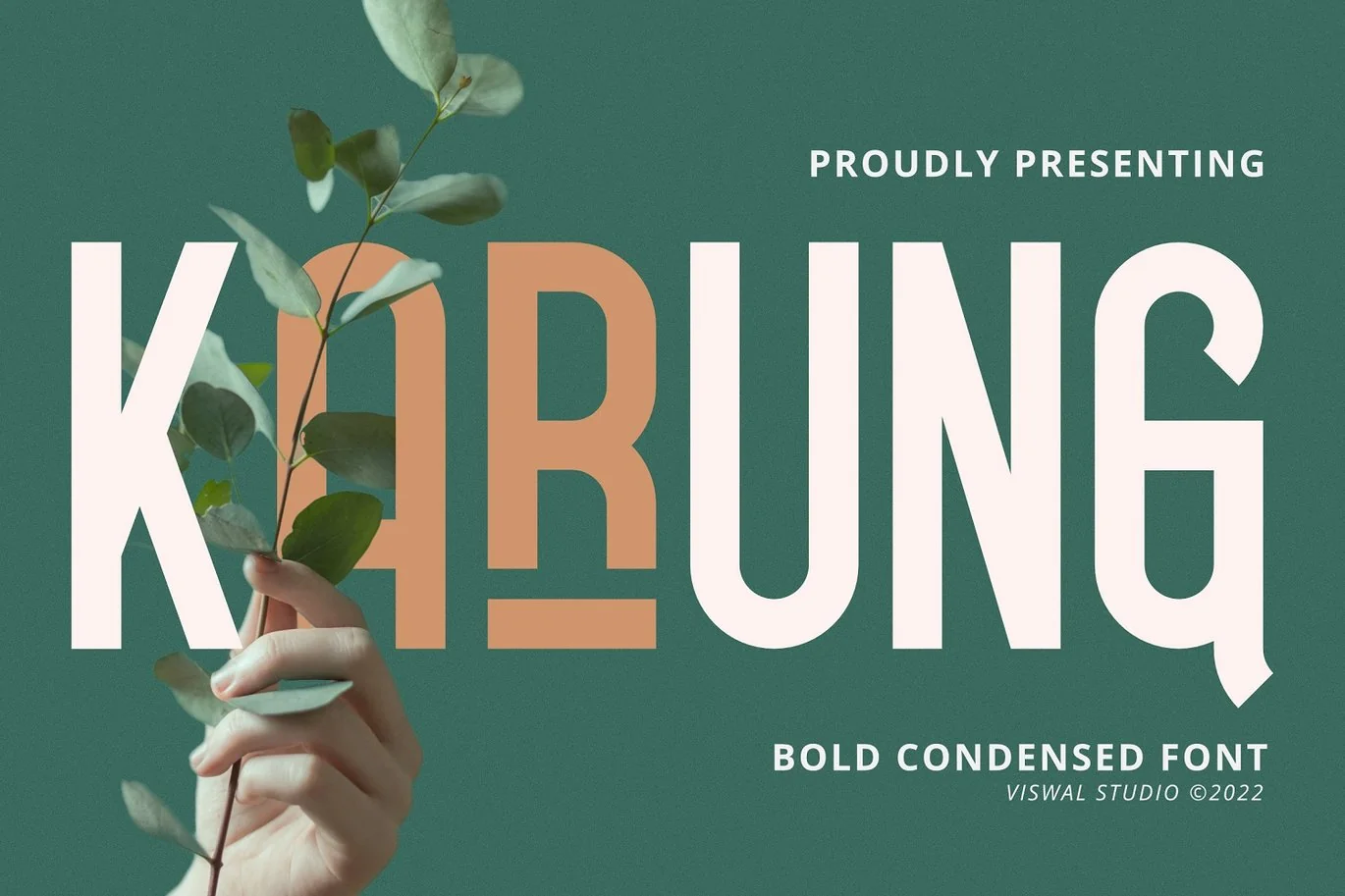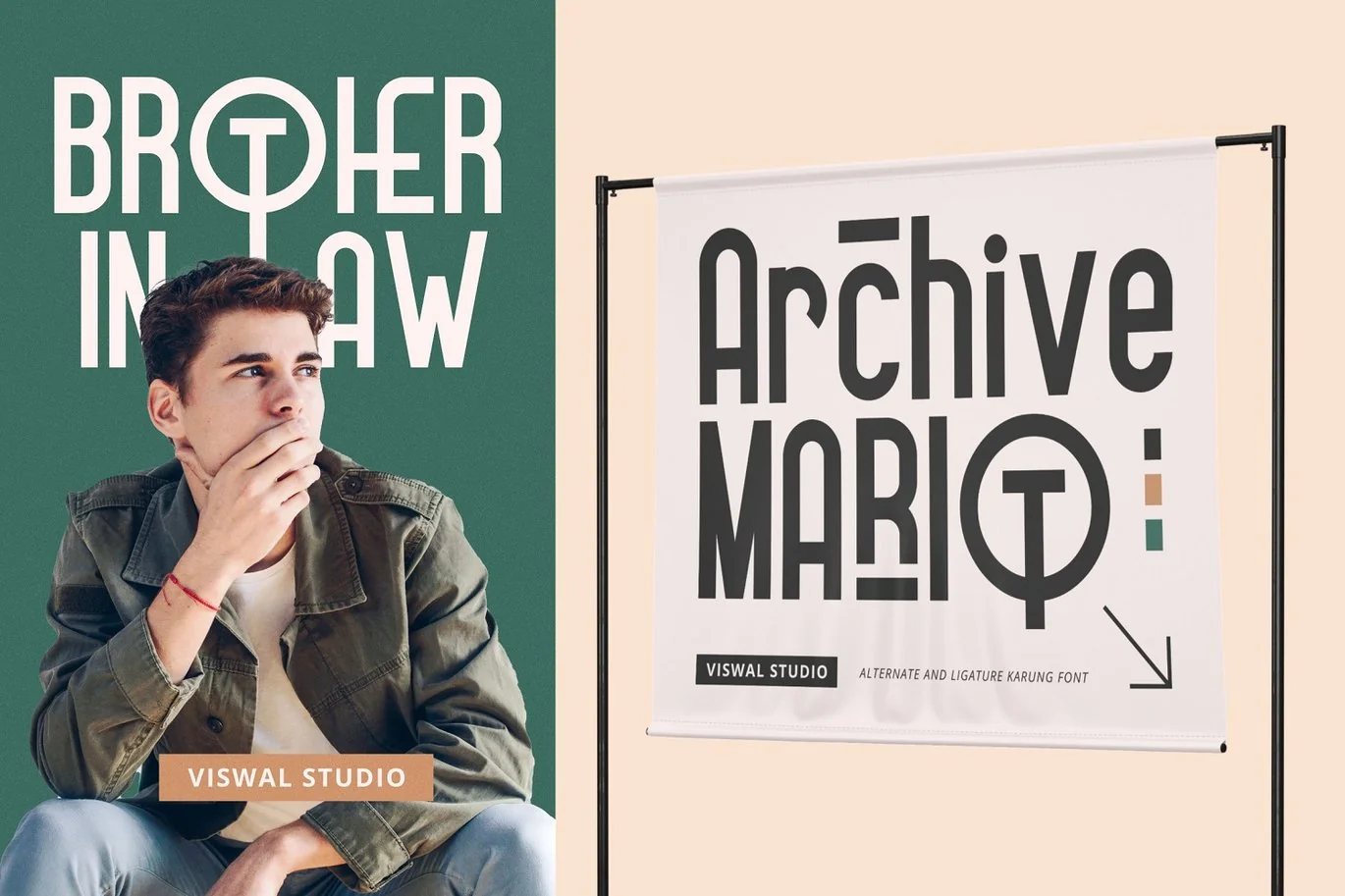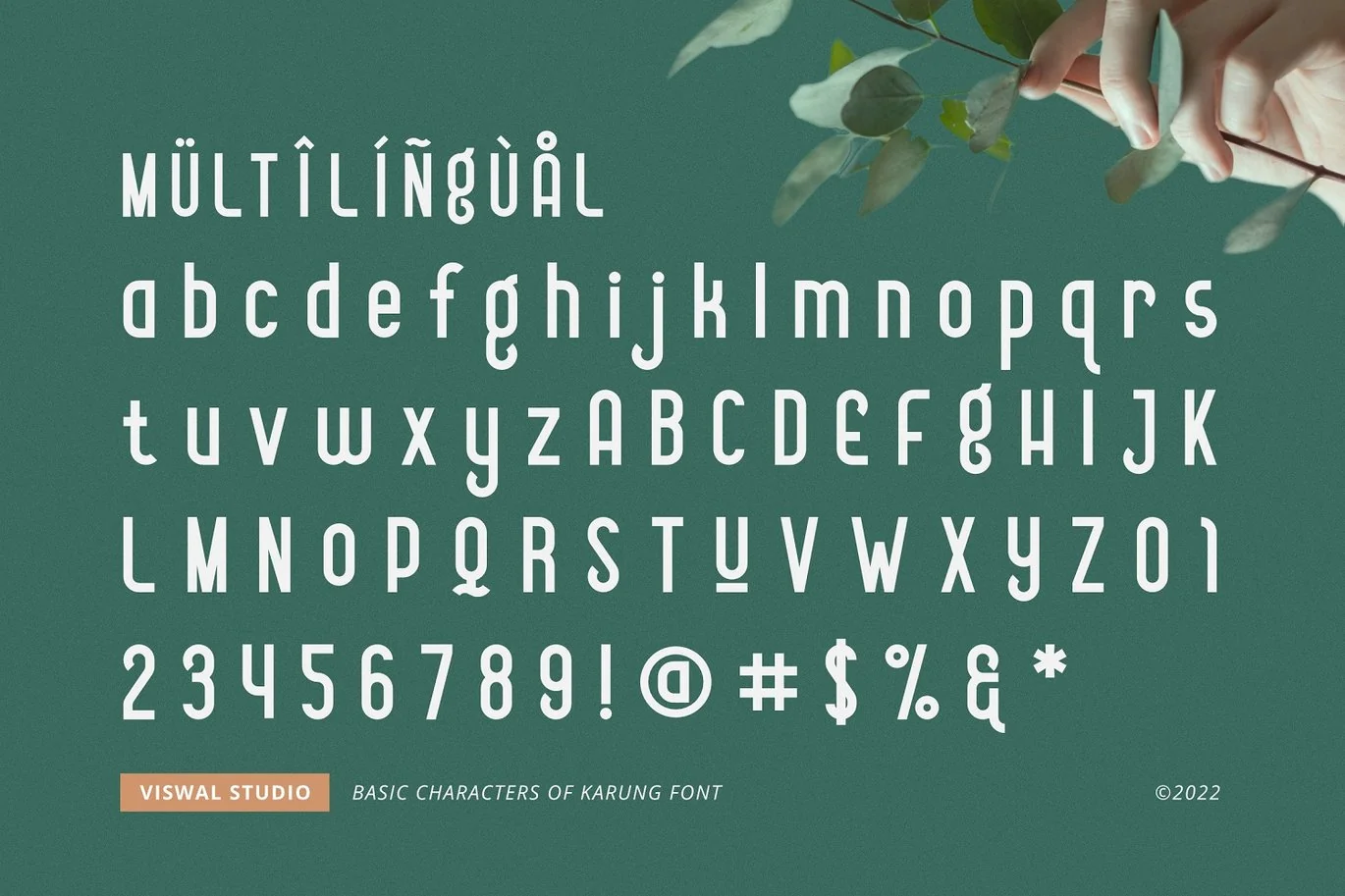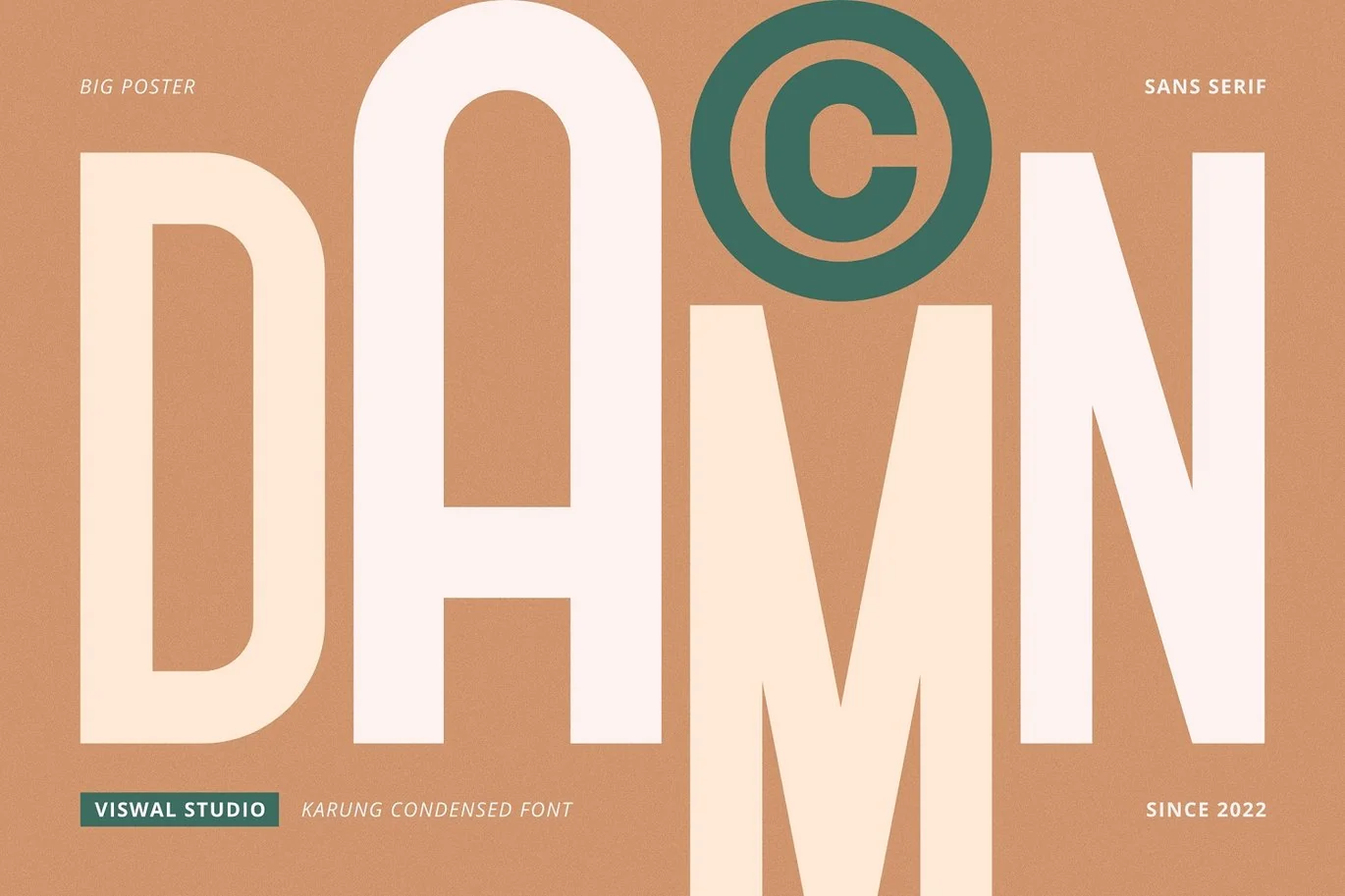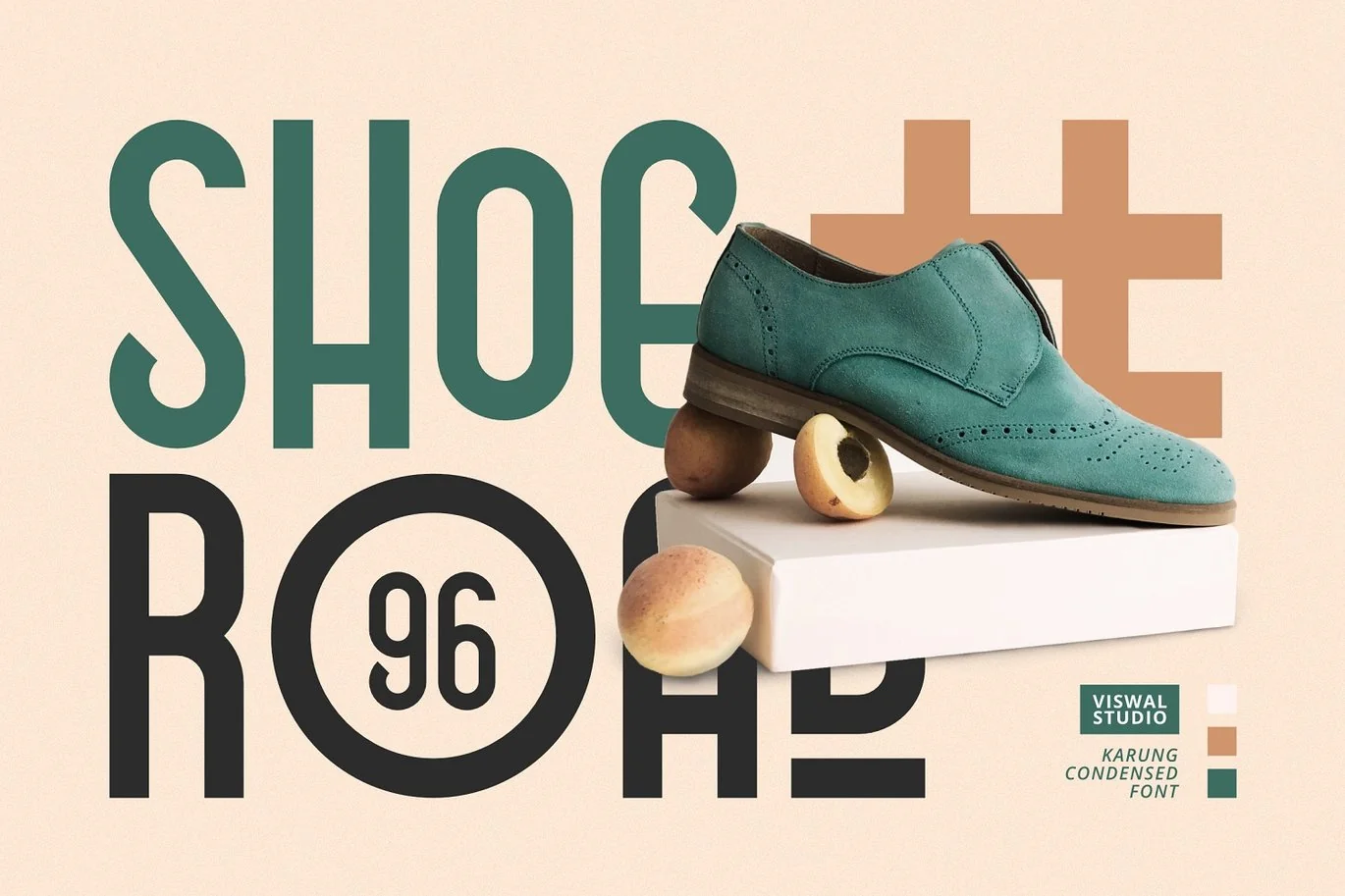
Karung – Modern Font
Presenting Karung – Modern Font is suitable for posters, website headers, banners, book covers, business cards, and etc. Our fonts have Uppercase & Lowercase, Numeral & Punctuation, Multilingual support and Opentype Features. For Amazing designs you can mix with other fonts as a complement.